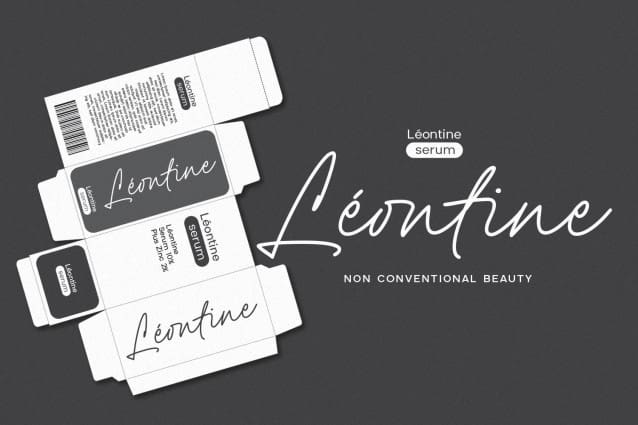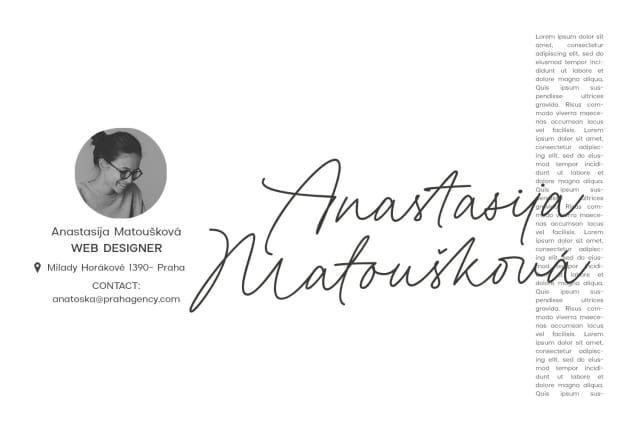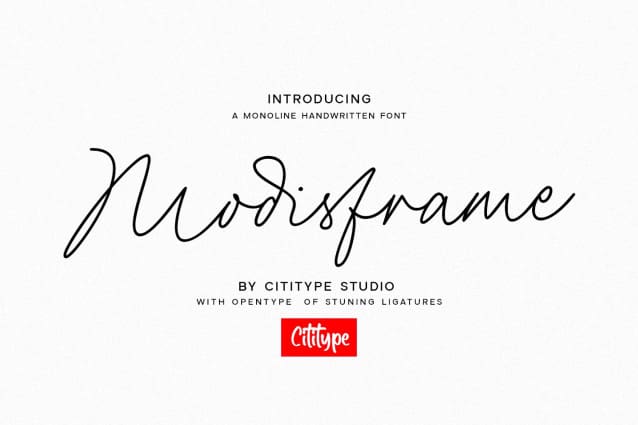
Modisframe Script Font
Modisframe Script Font is a modern stylish Signature font with light mono-line stroke. This handwritten font has 100 ligature that multilanguages supported.
Modisframe has the character of spontaneity and decisive mood. It will look great for digital signature, logotype, quotes, greeting cards, labels, packaging, social media overlays, prints, ads or make elegant wedding invitations and much more